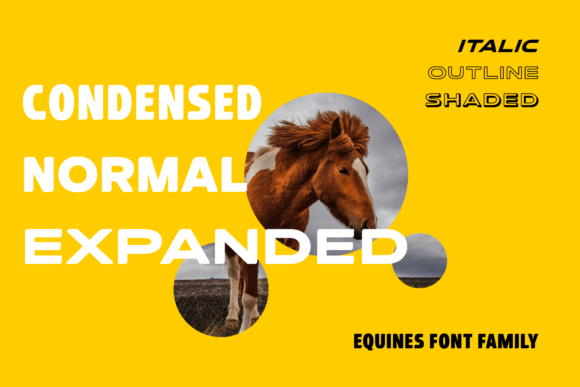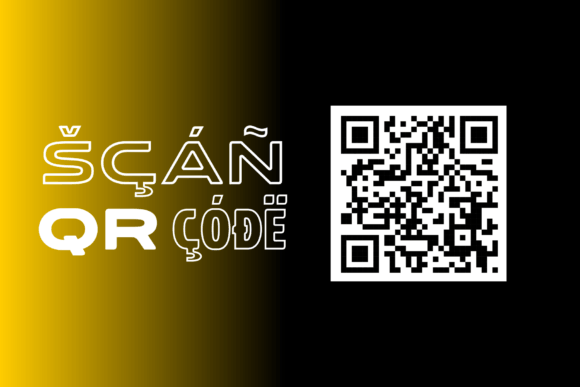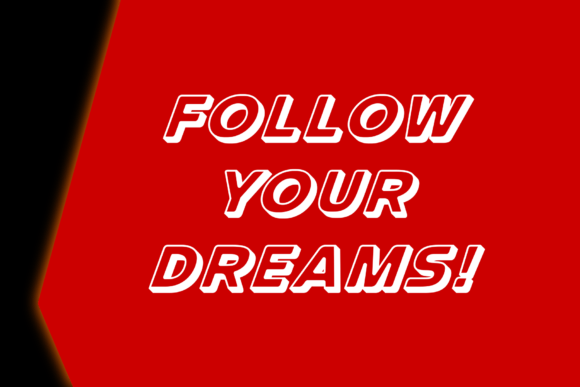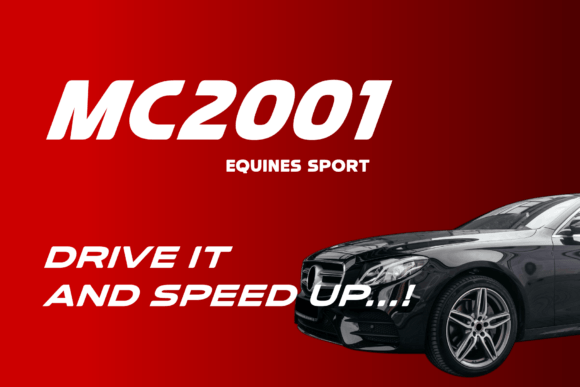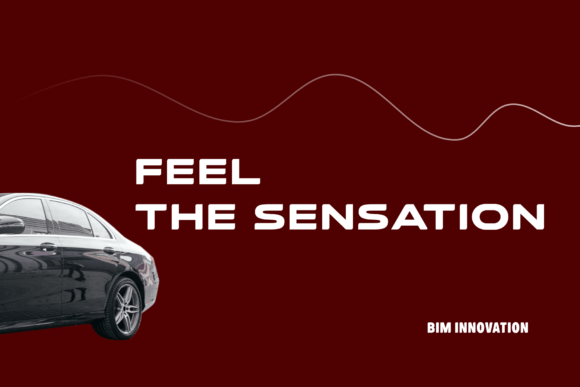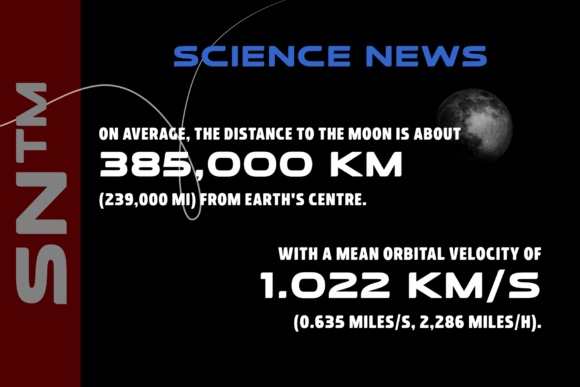
Introducing Equines Font: A Modern, Versatile Typeface for Display Purposes
In the world of typography, a well-designed font can make all the difference in creating a lasting impression. For designers and crafters looking for a bold and elegant font to elevate their branding, logos, and lettering, Equines Font is an excellent choice. This versatile font family is specifically designed for display purposes, offering a modern, thick, and strong appearance that’s perfect for making a statement.
The Design Philosophy Behind Equines Font
Equines Font is built on a design philosophy that combines strength, elegance, and dynamism. The font’s thick and strong appearance is balanced by a subtle rounding feature added to the corners of the letters. This cross-system approach creates a unique visual effect that makes the word display dynamic, strong, and elegant. The result is a font that’s not only visually appealing but also highly versatile and adaptable to various design contexts.
Key Features of Equines Font
- Modern and Bold Appearance: Equines Font boasts a modern, thick, and strong appearance that’s perfect for creating bold and eye-catching lettering.
- Rounding Feature: The font’s subtle rounding feature adds a touch of elegance and sophistication to the letters, making them more dynamic and visually appealing.
- Cross-System Approach: The font’s design takes into account various design contexts, ensuring that it looks great in different applications, from branding and logos to banners and headings.
- Versatile and Adaptable: Equines Font is designed to be versatile and adaptable, making it suitable for a wide range of design projects, from digital displays to print materials.
Use Cases for Equines Font
Equines Font is an excellent choice for various design projects, including:
- Branding and Logos: The font’s bold and elegant appearance makes it perfect for creating memorable logos and brand identities.
- Banners and Headings: Equines Font is ideal for creating eye-catching banners and headings that require bold and clear letters.
- Display Typography: The font’s modern and dynamic appearance makes it suitable for display typography, including billboards, posters, and digital displays.
- Packaging and Advertising: Equines Font can add a touch of sophistication and elegance to packaging and advertising materials, making them more visually appealing.
Tips for Using Equines Font Effectively
To get the most out of Equines Font, here are some tips to keep in mind:
- Use it for Display Purposes: Equines Font is designed specifically for display purposes, so use it for headings, titles, and other prominent text elements.
- Experiment with Font Sizes: The font’s bold appearance works well at various font sizes, so experiment with different sizes to find the one that works best for your design.
- Pair it with Other Fonts: Equines Font can be paired with other fonts to create a unique and visually appealing typography scheme.
- Pay Attention to Line Spacing: Make sure to adjust the line spacing to ensure that the text is easy to read and visually appealing.
Equines Font is a versatile and elegant font family that’s perfect for designers and crafters looking for a bold and modern typeface for display purposes. Its unique design philosophy, which combines strength, elegance, and dynamism, makes it an excellent choice for various design projects, from branding and logos to banners and headings. By following the tips outlined above, you can use Equines Font effectively and create stunning typography that makes a lasting impression.